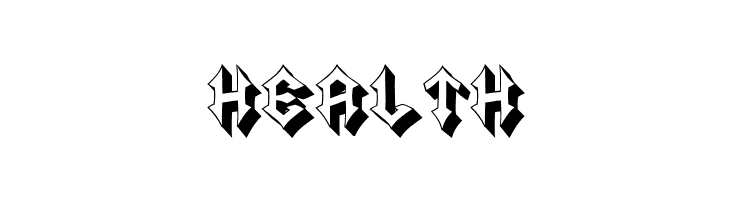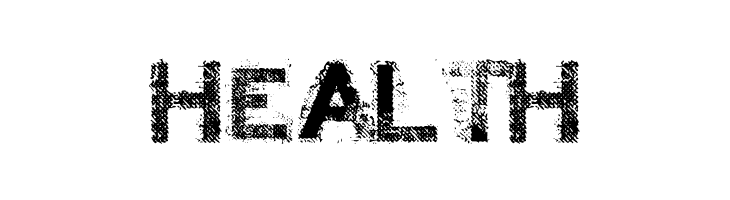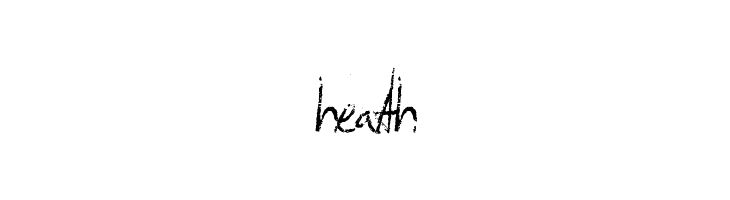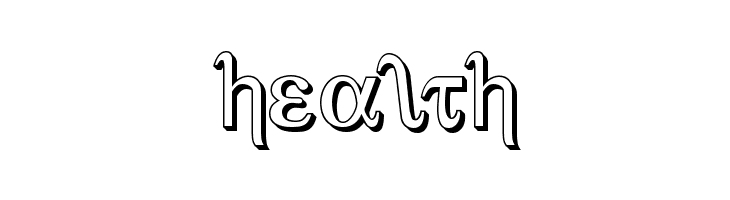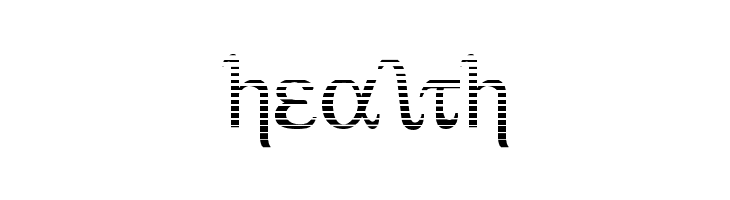
A dynamic and fluid script font with elegant, flowing letterforms.
A classic serif font inspired by ancient Greek letterforms, offering elegance and readability.
A bold, three-dimensional font with shadow effects and geometric styling.
A bold, gradient-patterned font with a classic yet modern serif influence.
A bold, distressed font with a grunge, industrial style.
A bold, distressed font with a grunge, textured appearance.
( Adrián Flores )
A dynamic and artistic cursive script with high contrast and fluid strokes.
A bold, angular font with a gothic, blackletter style and three-dimensional effect.